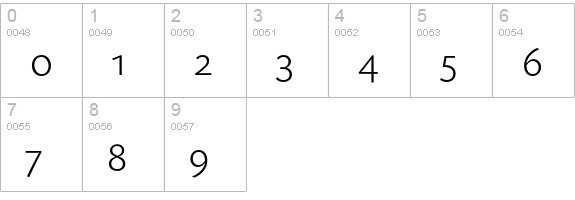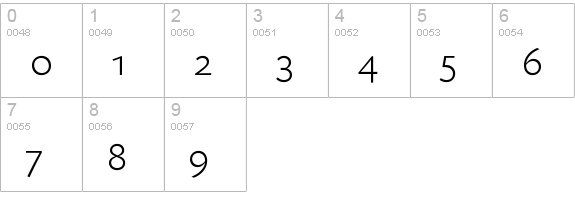
Today Sans Serif Caps Light Font Details
Today Sans Serif Caps Light is a refined, elegant variant in the Today typeface family \xE2\x80\x94 well suited to elegant body text, refined sub-headings, and luxury branding.
Introducing Today Sans Serif Caps Light, a sleek and modern typeface that effortlessly exudes elegance and sophistication. This font is the perfect choice for projects that require a clean and minimalist aesthetic, while still maintaining a touch of personality. With its slender and refined letterforms, Today Sans Serif Caps Light adds a contemporary and stylish flair to any design. Its carefully crafted curves and subtle strokes make it visually pleasing and easy on the eyes, ensuring optimal readability across various mediums. But what sets Today Sans Serif Caps Light apart is its accessibility. This font is freely available to download at FontsMarket.com, allowing designers, creatives, and enthusiasts alike to effortlessly incorporate it into their projects. Whether you're working on personal endeavors or professional assignments, Today Sans Serif Caps Light is the ideal choice for creating captivating headlines, striking logos, or sleek branding materials. This versatile typeface shines in a wide range of applications, from print materials such as magazines, brochures, and posters, to digital platforms like websites, social media graphics, and presentations. Its clean and crisp design adds a touch of sophistication to any project, ensuring that it stands out from the crowd. Today Sans Serif Caps Light not only offers impeccable aesthetics but also brings with it a sense of versatility and adaptability. Its clean lines and refined accents make it a perfect complement to any design style, whether it be minimalistic, modern, or even retro-inspired. This font effortlessly adapts to your creative vision, enhancing the overall impact of your message. So, if you're looking for a font that combines timeless elegance with contemporary design, look no further than Today Sans Serif Caps Light. Download it for free at FontsMarket.com and unlock endless possibilities for your next creative endeavor. Elevate your designs with this captivating typeface and make a lasting impression on your audience.